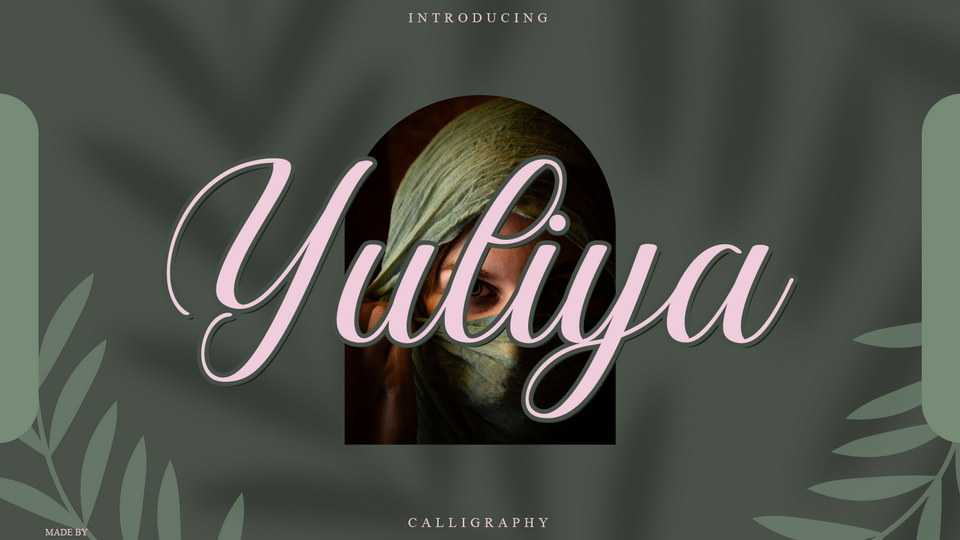
Download Yuliya font, a delicate, elegant and flowing handwritten typeface. Yuliya font is perfect to create gorgeous wedding invitations, beautiful stationary art, eye-catching social media posts, and much more.
Designer: Fiqi Febriyanto